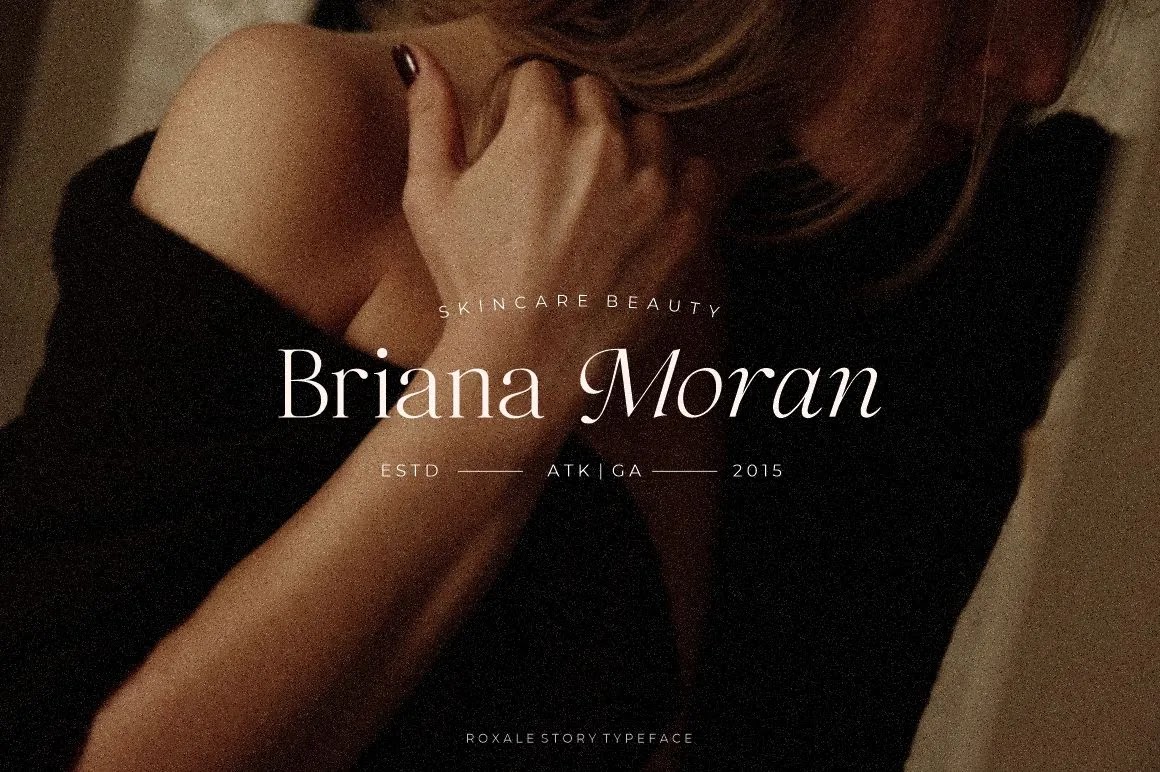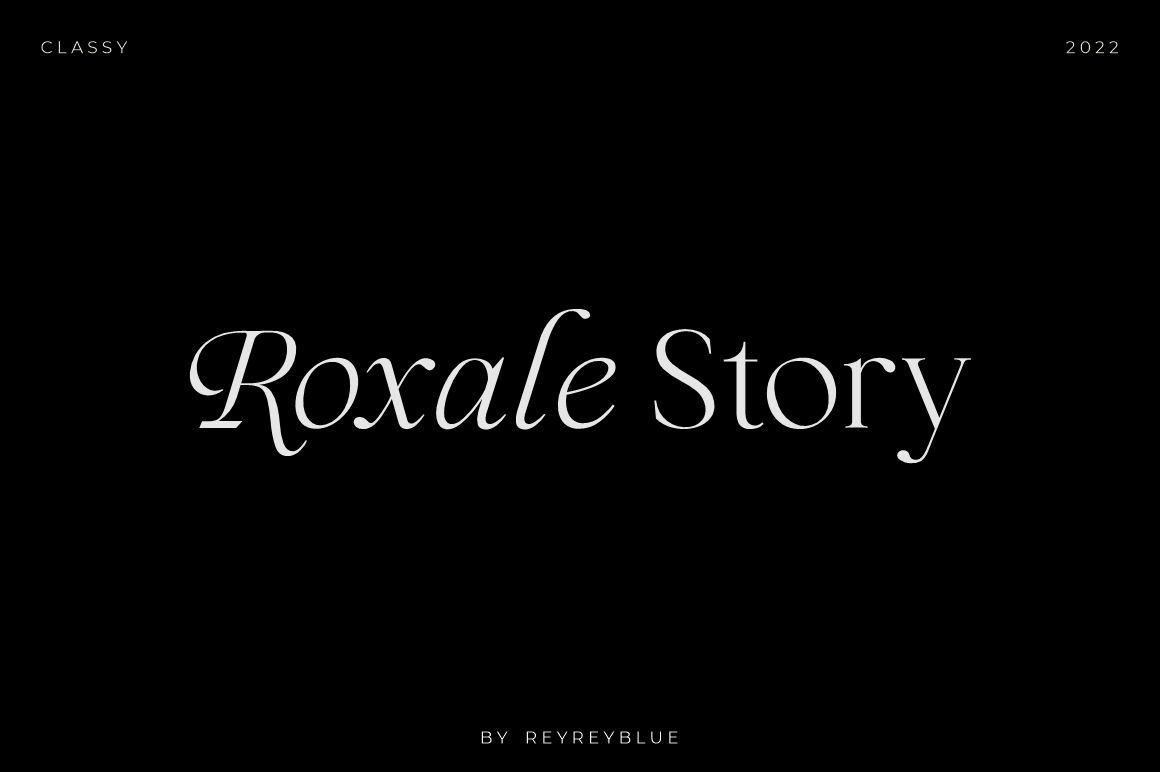
A new fresh & modern serif with smooth curves. It comes with elegant style, classy, and contrasts, with features and consist of regular, italic and calligraphy italic.